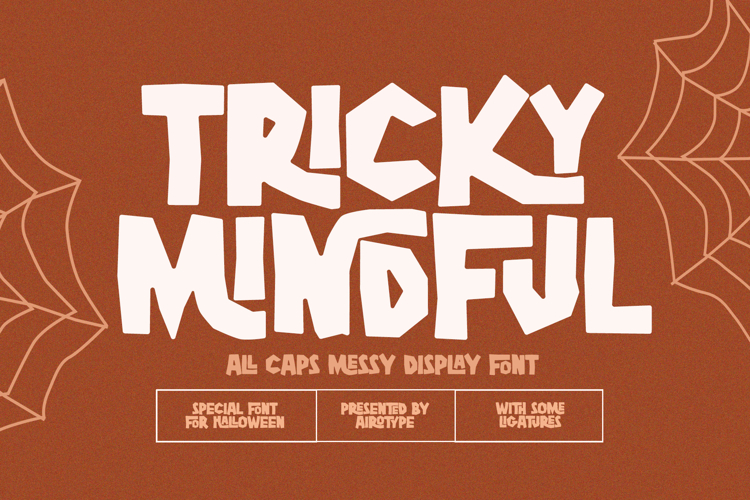
Tricky Mindful is all caps font with ugly and messy look. The unregular stroke and shape of each character made this font looks cool and festive. Few ligatures available to create more quirky vibes into the design.
Tricky Mindful is bouncy, fun, and festive font for wide ranges of design, such as crafting, halloween, t-shirt, display, sticker, quotes, tumbler, sublimation, spooky design, and many more.